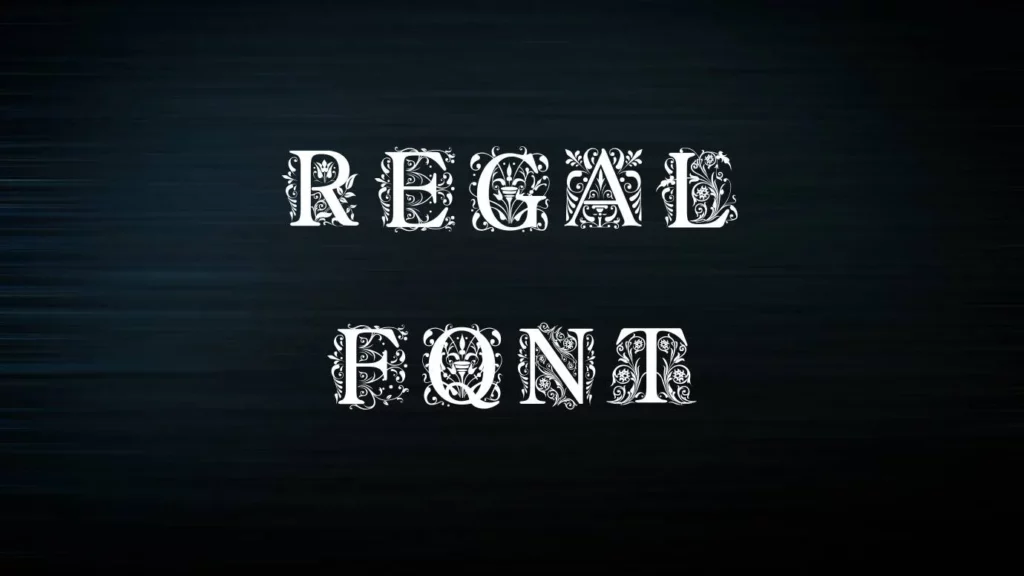
This magnificent text style is valuable for many official businesses and makes appealing plans. It is additionally idealized for making comparable plans of
Regal Font style could be a modern typeface that was planned by Fontographer. It has a place in the attractive textual style family. This typeface was introduced in 1999. It has more than 27 glyphs with 1000 units/em. All the letters of this font make extraordinary designs.
This magnificent text style is valuable for many official businesses and makes appealing plans. It is additionally idealized for making comparable plans of this typeface with the assistance of other typefaces like I love Sparkle Font. It is valuable for making an interesting and attractive plan for business.
This text style is utilized in different plan areas that’s why the value of this typeface is increasing day by day. Due to its slick, clean, and delicate appearance, this typeface is popular around the world.
Regal Font View on Image Designs
You'll utilize this typeface for worldwide daily papers and magazines. By downloading this typeface you'll utilize this typeface common reports, post descriptions, and homeware designs.
Use of Regal Font
You'll make business plans, website designs, t-shirt logos, and more. It is additionally valuable for making card plans like wedding cards, welcome cards, and related other ventures. This typeface is suitable for flyers, web journal plans, and postcard designs.
Many web architects use this for their all private and commercial purposes. It is additionally valuable for thumbnails, stationery plans, articles, mug logos, and much more. You can compare it with chunkfive roman font. You'll make official logos, animated logos, and individual site logos. License Info
It could be a present-day unique typeface and it was built up by Fontographer.
You can utilize this inspiring typeface for varied plans places such as logo plans. It is additionally valuable for Ms Word and Ms. Office.
Many fonts are comparable to this cozy typeface but a few textual styles are primarily similar to this cozy typeface like Janda Bloom Doodles text style.